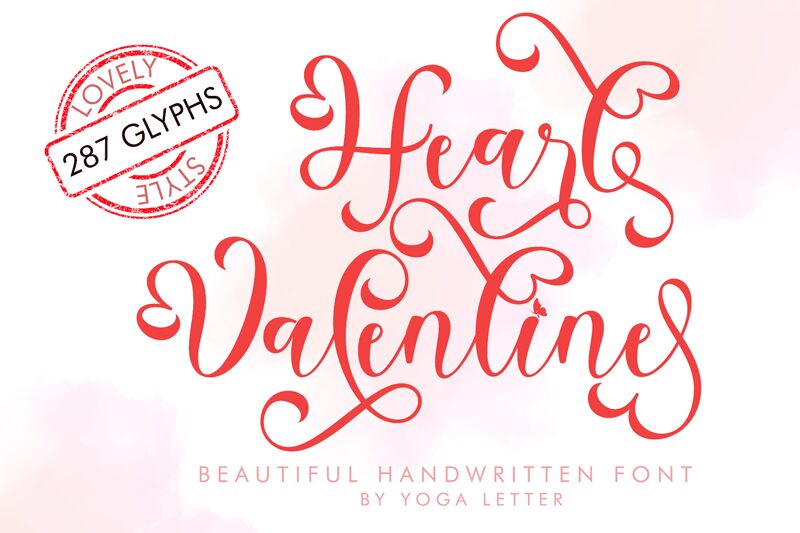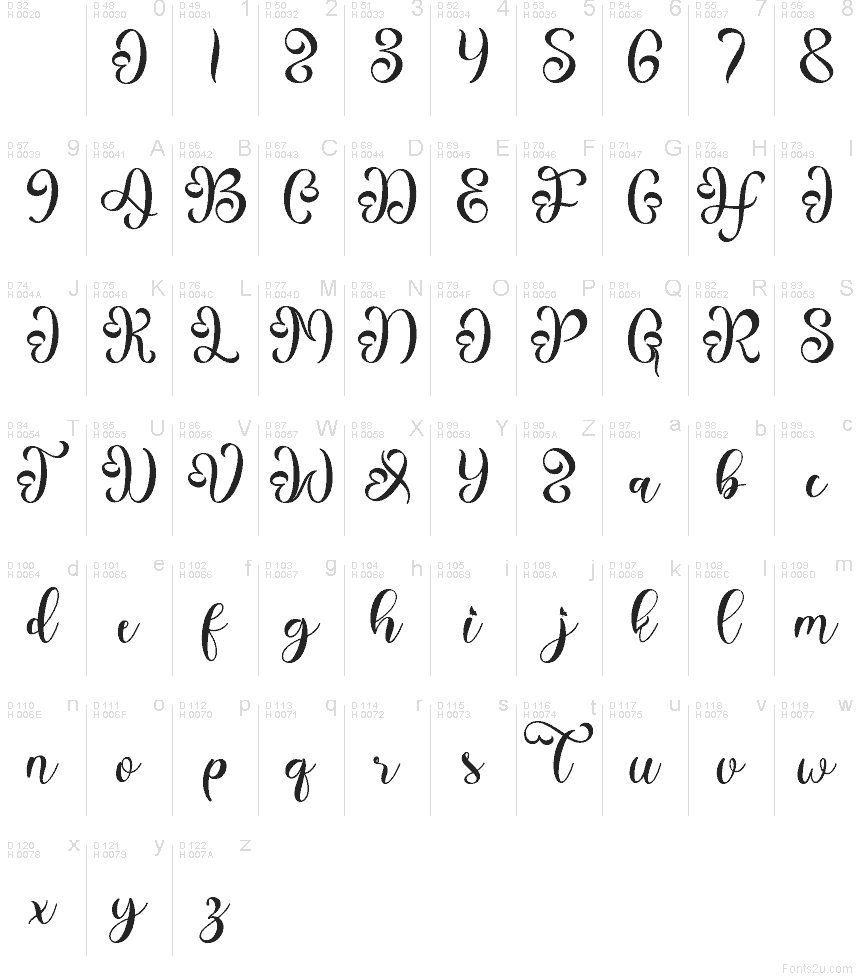
Heart Valentine Demo
Heart Valentine font by Yoga Letter is a free holiday calligraphy typeface that looks like it’s been written with a smooth, inky brush and finished with tiny heart-shaped curls. The letters dance along a gentle, bouncy rhythm, with generous loops and sweeping tails that feel soft, romantic, and just a little bit playful—more handwritten love note than stiff formal script.
Using Heart Valentine, your designs instantly pick up a sweet, handcrafted charm that shines on Valentine cards, wedding stationery, love quote prints, candle or chocolate packaging, social media posts, and romantic event flyers. This free font works beautifully as a large headline or main wordmark; pair it with a clean, light sans serif for body text to keep everything readable and balanced.